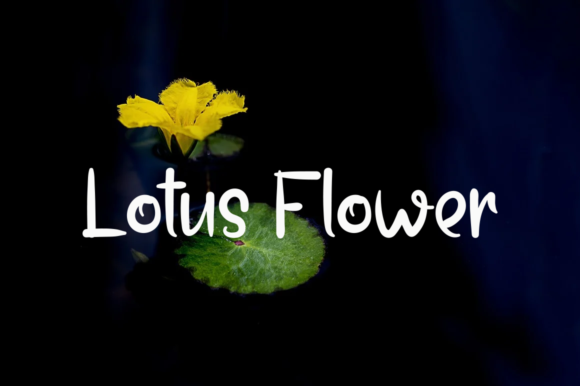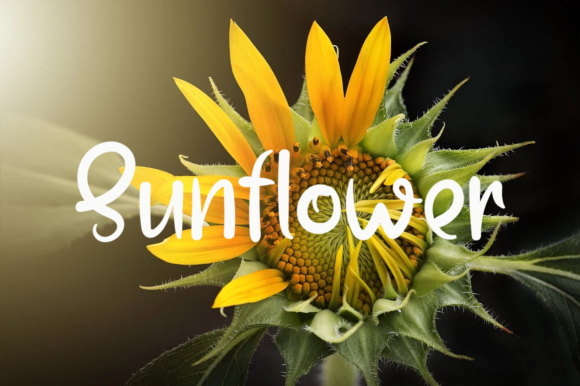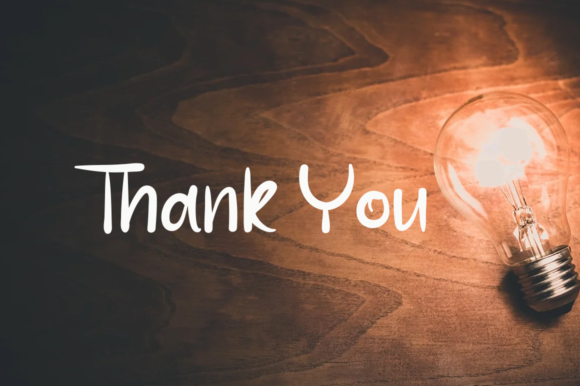
Sweet Pineapple Font
About Sweet Pineapple Font
Sweet Pineapple is a cute and friendly handwritten font. Its natural and unique style makes it incredibly fitting to a large pool of designs. The only limit is your imagination!